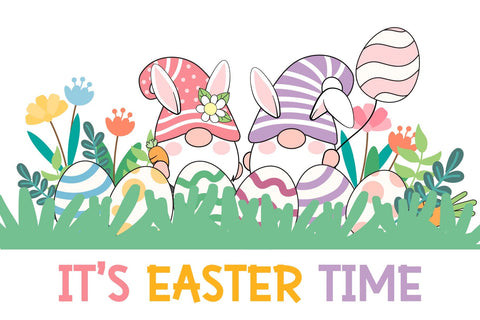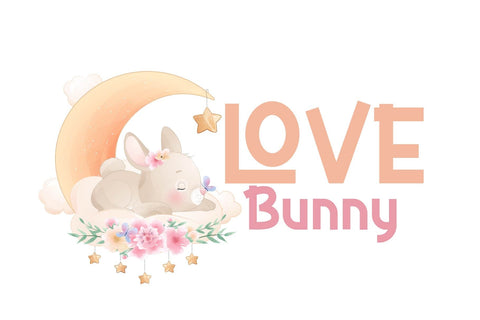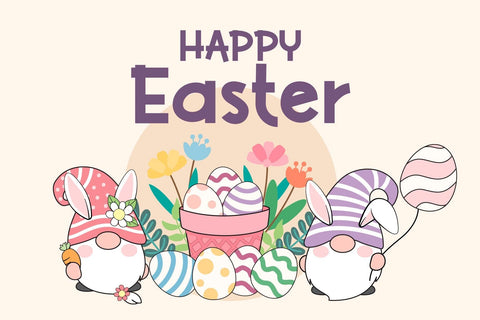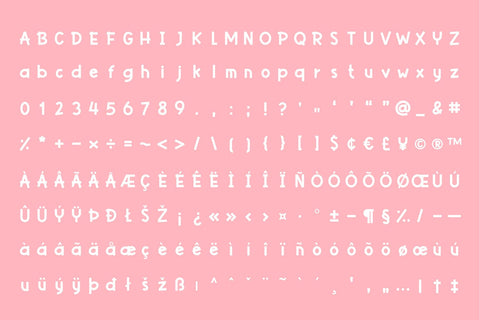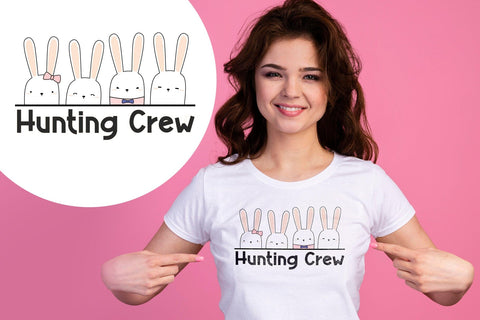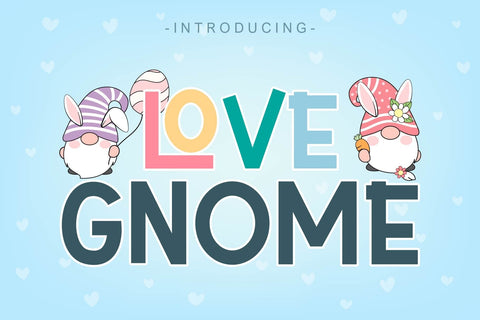
Love Gnome Font
Love Gnome is a cute and fun display font. This font fits a vast pool of designs, elevating them to the highest levels. Add this font to your favorite creative ideas and notice how it makes them come alive! This font is PUA encoded which means you can access all of the amazing glyphs and ligatures with ease!